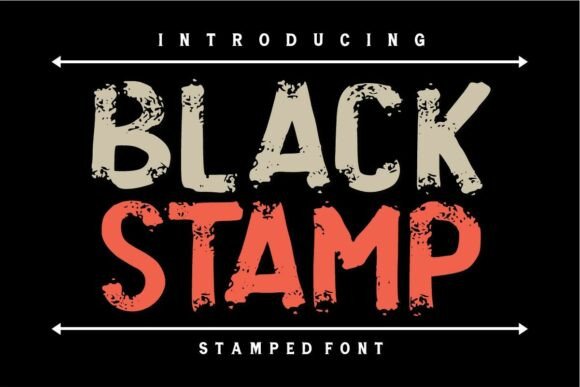
The Power of Black Stamp Font: A Designer’s Best Friend
I still remember the design project that made me fall in love with the Black Stamp font. I was working on a vintage-style advertisement for a local brewery, and I needed a font that would capture the essence of their brand – bold, rugged, and authentic. After hours of searching, I stumbled upon Black Stamp, and it was love at first sight. The rough, worn texture and industrial power of this font instantly gave me the aesthetic I was looking for. In this article, I’ll share my experience with Black Stamp, its features, and how to make the most of it in your designs.
An Honest Review of Black Stamp Font
What I Love About Black Stamp ✨
- ✅ Unique Texture: The rough, worn texture gives Black Stamp an authentic stamped and vintage feel that’s hard to achieve with other fonts.
- ✅ High-Impact Sans Serif: The classic sans serif design makes it perfect for titles that exude authority and history.
- ✅ Versatility: Black Stamp is ideal for various design projects, from vintage-style advertisements to movie title sequences, posters, and apparel.
- ✅ Easy to Pair: The bold, masculine aesthetic of Black Stamp makes it easy to pair with other fonts and textures.
While Black Stamp is an amazing font, there are a few things to keep in mind:
- 🤔 Legibility at Small Sizes: Due to its textured nature, Black Stamp may not be the best choice for small font sizes or body text.
- 🤔 Limited OpenType Features: Black Stamp has a limited set of OpenType features, which might restrict some advanced typography.
A Practical Guide to Using Black Stamp Font
The Backstory of Black Stamp Font
Black Stamp was designed with the intention of capturing the raw, industrial power of stamped and vintage typography. The font’s creator aimed to create a bold, commanding look that would evoke a sense of history and authority. By applying a heavy weathering process to a classic sans serif design, Black Stamp was born – a font that’s perfect for designers seeking a rugged, masculine aesthetic.
Q: What type of designs is Black Stamp best suited for?
A: Black Stamp is ideal for vintage-style advertisements, brewery branding, movie title sequences, posters, titles, branding, apparel, and album covers.
Q: Can I use Black Stamp for body text?
A: While Black Stamp is a beautiful font, it’s not recommended for body text due to its textured nature and potential legibility issues at small sizes.
Q: Does Black Stamp have OpenType features?
A: Black Stamp has a limited set of OpenType features, which might restrict some advanced typography. However, it still offers a range of glyphs and stylistic alternates to enhance your designs.